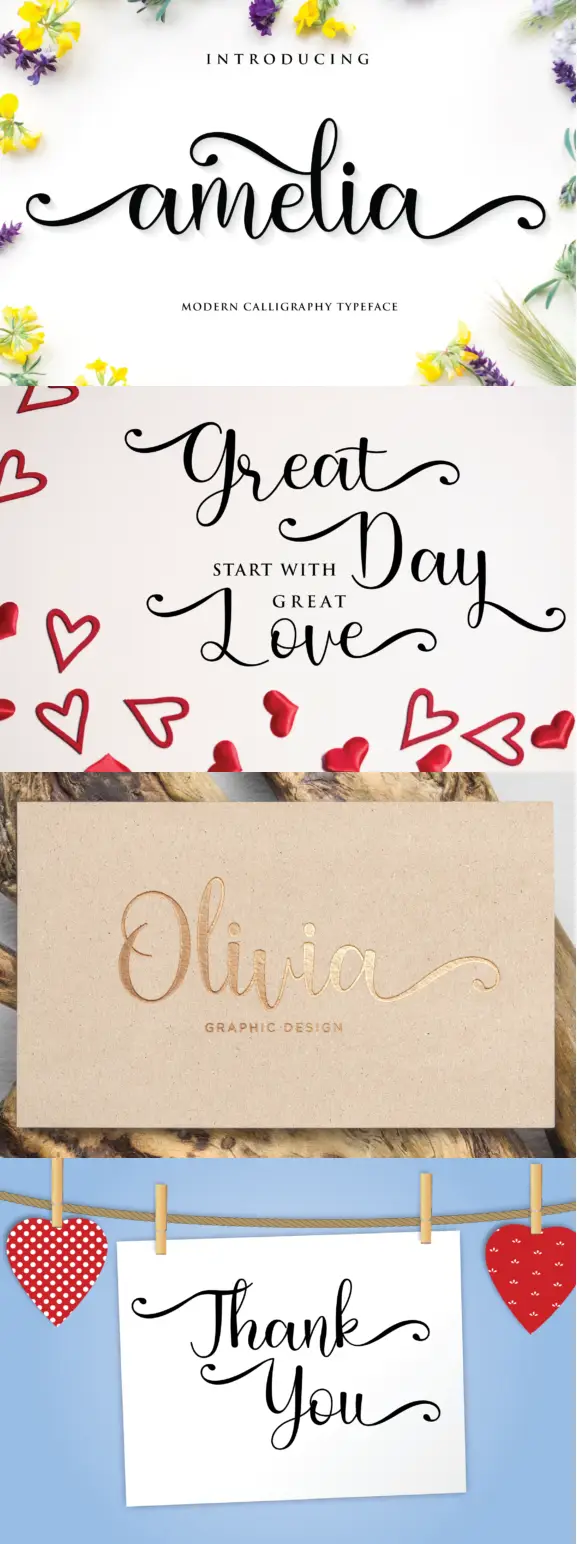
Introducing the Amelia Modern Calligraphy Font, a beautifully crafted typeface that brings elegance and sophistication to your projects. This font features a flowing script style, perfect for adding a personal touch to invitations, greeting cards, and branding materials.
- Stylish calligraphy design
- Extensive character set, including ligatures
- Styles: Regular, Bold
This font is ideal for branding, logo design, web graphics, and print materials. Combine it with complementary sans-serif fonts for a balanced and modern look.